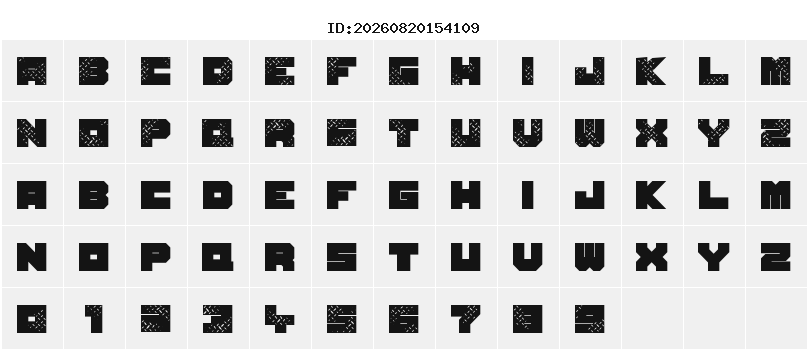
Seven of One Preview
• Font Name: Seven of One
• Full Font Name: Seven of One
• Designer: imagex
About Seven of One.ttf
Seven of One.ttf is a modern, elegant sans-serif font designed for ultimate readability and visual harmony. Perfect for branding, headlines, web design, and print materials.